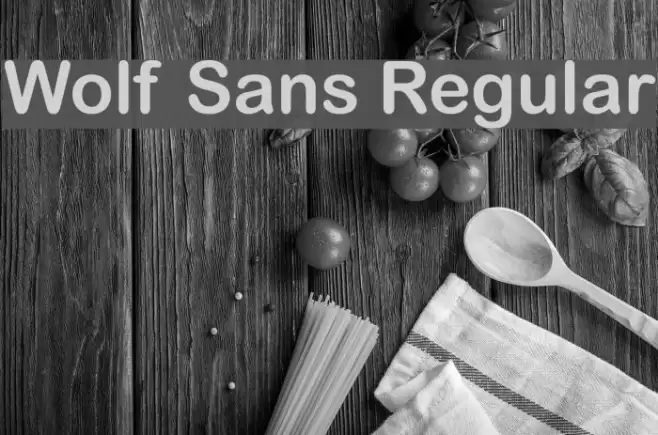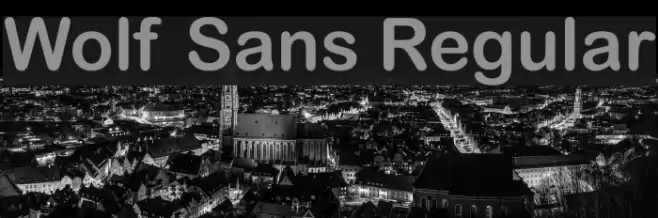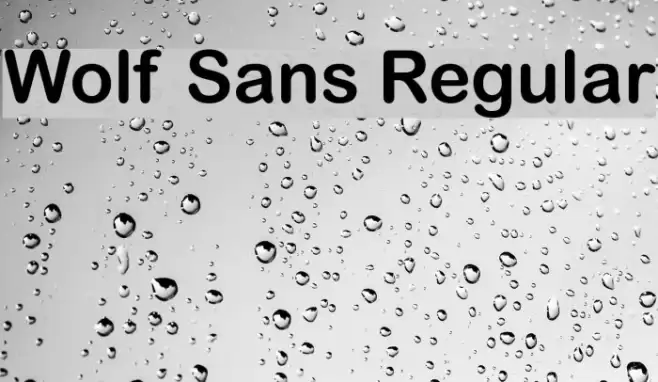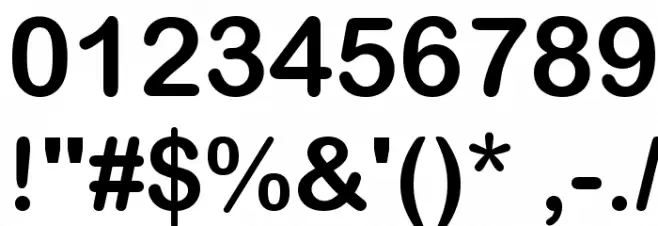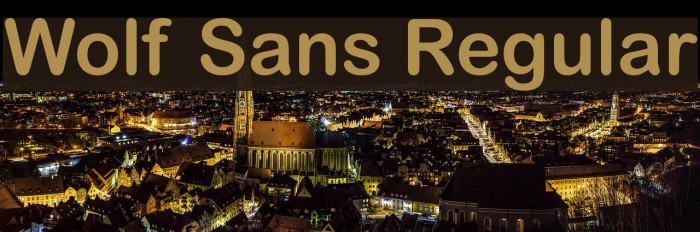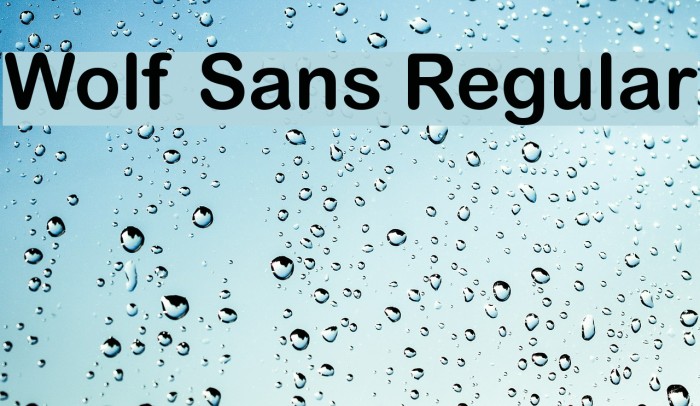
Wolf Sans Regular
This font exhibits a clean and modern sans-serif style, characterized by its simplicity and clarity. The letters are evenly spaced, providing a balanced and harmonious appearance. The strokes are uniform in thickness, contributing to a low contrast design that enhances readability. Its geometric shapes and smooth curves make it versatile for various applications. The font maintains a consistent weight throughout, ensuring a cohesive look across all characters. It is well-suited for digital and print media, offering a professional and contemporary aesthetic.
A clean, modern sans-serif font with uniform strokes and balanced spacing.